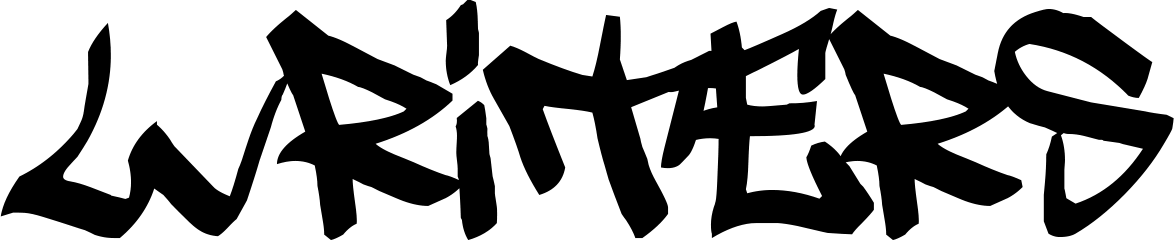
Writers Font
Designed byJohan Waldenstrom
Graffiti fonts are very eye-catching when it comes to creating and exhibiting the typography you intend to achieve! This Writers font that we are introducing is available in 2 versions, it offers bold, out-of-shape, mischievous characters that have an urban style look.
The letterforms are not that easy to read, but they do have a resemblance to average letters. Capital alphabets are only included while leaving out numbers, lowercase letters, and punctuations. It’s best for branding, games, logo, and clothing.